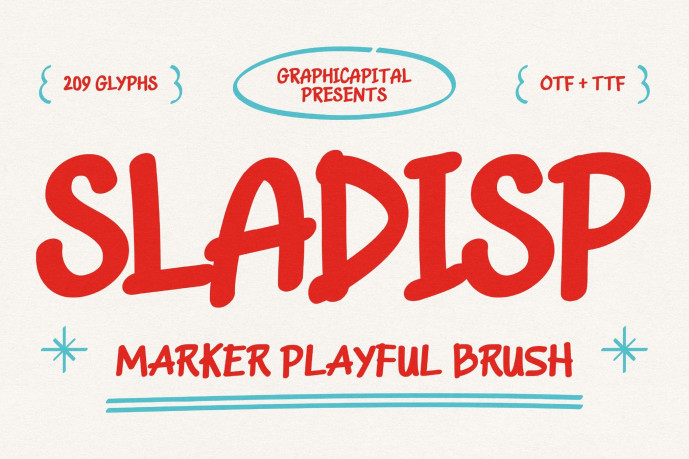
Sladisp Playful Font
Designer: Graphicapital
Sladisp Playful Font is a playful marker brush-style font with thick, organic strokes that create a lively and spontaneous feel. Ideal for cheerful, relaxed, and energetic design projects that want to exude fun and creativity.